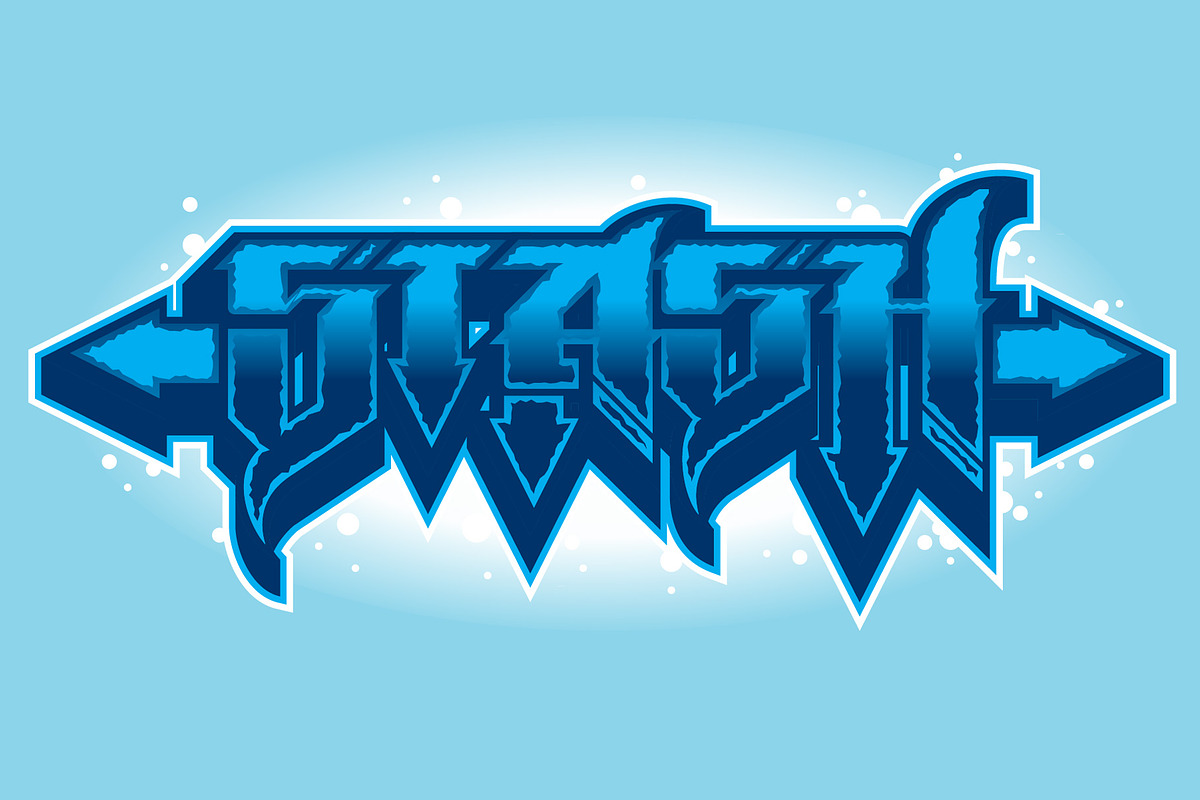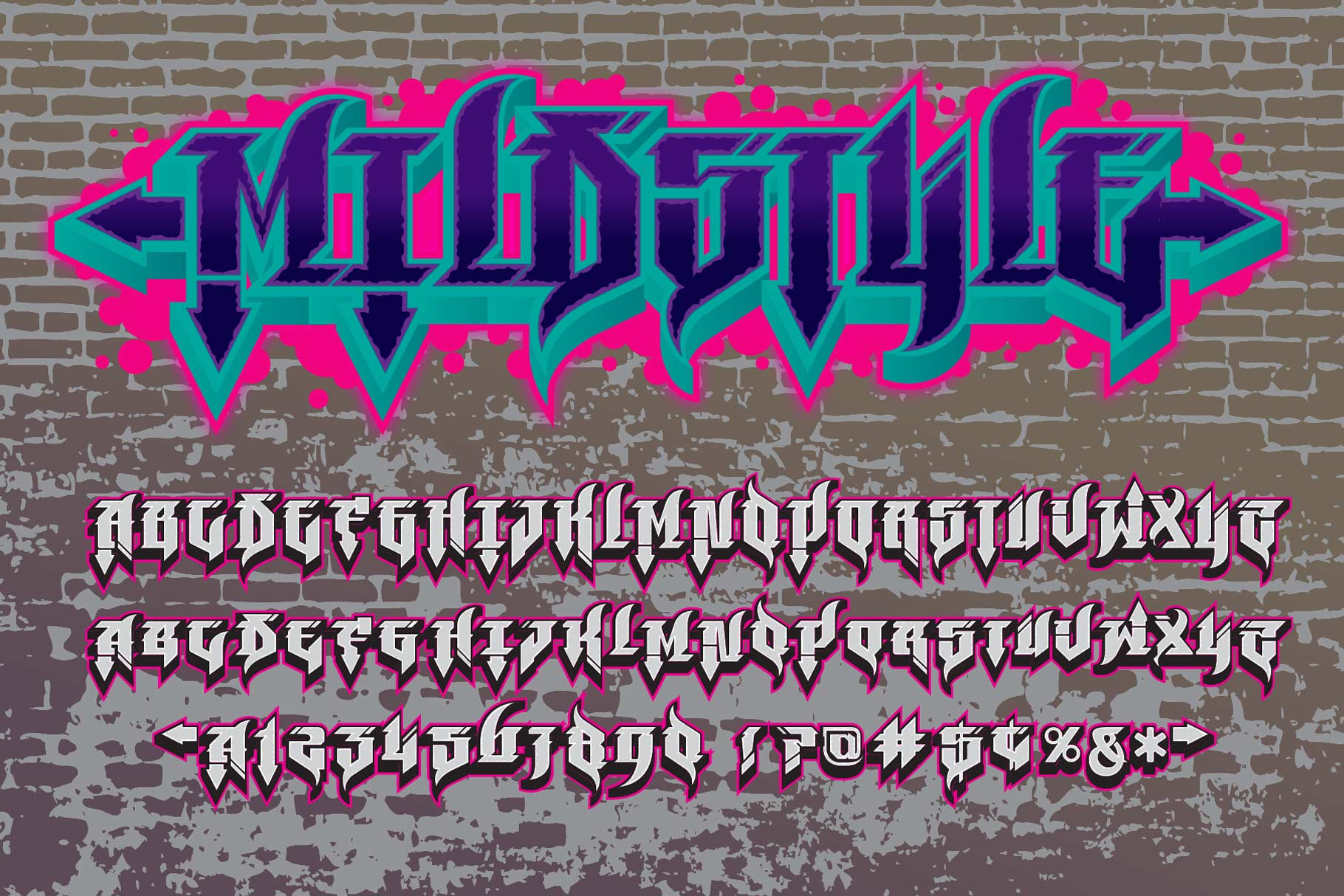
Graffiti Fonts | MildStyle
The MildStyle family is a simple take on an old school Graffiti Wild style. This stackable, layered type system of four fonts plus a color SVG style made up of all 4 styles from the layered family. MildStyle was first designed in 2012 & revised in 2019.